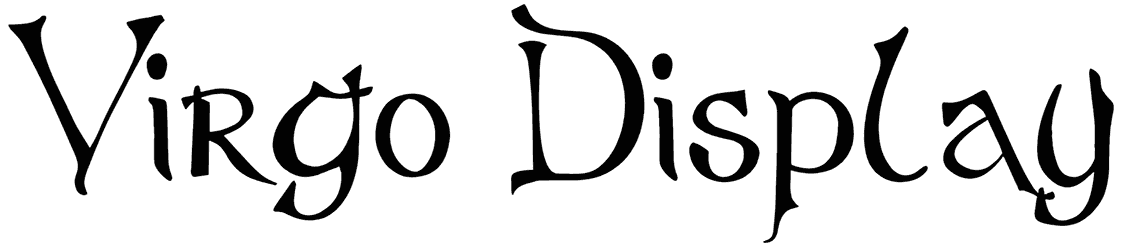
Virgo Display Font
Warm greetings to the gothic font that is here for free, Virgo Display. This Celtic font empowers your statement and gives you a high degree of control over the audience’s reaction. Therefore, you can use all of the characters to design content that needs focus and includes a nostalgic meaning. Put it on any posters, movie titles, flyers, album covers, and much more.